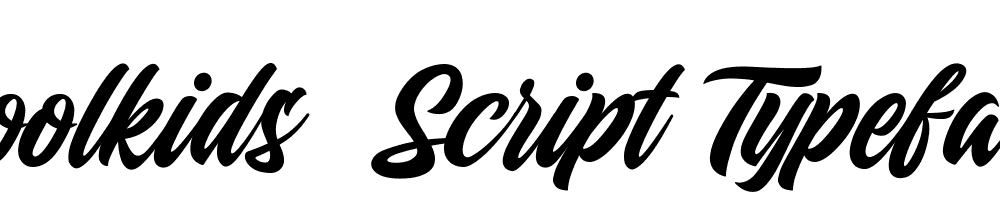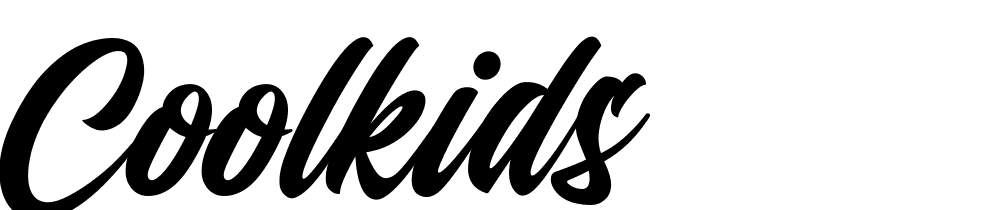
Coolkids Script Typeface
About Coolkids Script Typeface font
Introducing the latest and greatest creation by renowned font designer, [Name], and produced by [Producer]: [Title] Version [Version]. This font is a true work of art, combining sleek and modern elements with a touch of playful charm. Just one glance at the font’s image (https://fonnts.com/preview/thumbnails/coolkids-script-typeface-font-download-58720.png) and you’ll be instantly drawn in by its unique style and captivating design.
[Title] masterfully blends two distinct themes, resulting in a font that is both fresh and cool. The first theme, evident in the font’s bold and dynamic script, exudes an effortless and carefree vibe. It’s the perfect balance of fun and sophistication, making it ideal for any project that needs a touch of personality. Whether you’re creating a logo, branding materials, or social media graphics, this font will add a touch of coolness to your design.
The second theme, showcased in the font’s clean and refined lines, adds a touch of modernity and professionalism. This makes [Title] not only a versatile choice for personal projects but also a must-have for businesses looking to make a statement. With its fresh and cool style, this font is sure to stand out and leave a lasting impression on anyone who sees it.
Designer of Coolkids Script Typeface : Adhi Nugraha @superkij
Family name: Coolkids - Script Typeface
manufacturer: Adhi Nugraha - Superkij